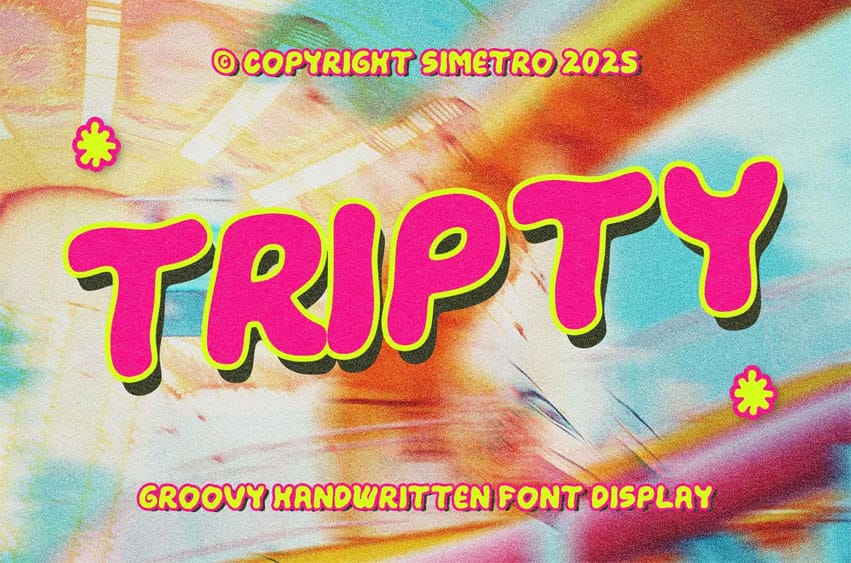
Tripty Font Dive into a world of vibrant fun and retro charm with TRIPTY, an utterly unique and playful, groovy handwritten font display. This eye-catching typeface is meticulously designed to exude a joyful, nostalgic, and energetic vibe, making it perfect for projects that demand a bold, distinctive, and whimsical personality. Inspired by psychedelic aesthetics and 70s-era graphics, TRIPTY brings a fresh yet familiar feel to your creative work.
TRIPTY’s signature bubble-style letters with their irregular, handcrafted outlines and a subtle textured appearance ensure your text jumps off the page (or screen!). It’s incredibly versatile for various high-impact applications: think vibrant social media graphics, captivating poster designs, playful children’s book titles, distinctive product packaging, and event promotions that aim to be unforgettable. Its bold presence and quirky details make it an instant attention-grabber.
This font comes equipped with a comprehensive character set, including both uppercase and lowercase letters, numbers (0-9), and essential punctuation. Designed for maximum visual appeal, TRIPTY is ready to infuse your designs with a dose of happiness and a unique, artistic flair.
*Groovy Handwritten Display Style: Unique, playful, and retro-inspired bubble lettering. *Bubble Letter Aesthetic: Bold, rounded, and distinctively quirky characters. *Complete Character Set: Includes uppercase, lowercase, numbers (0-9), ligatures, and punctuation. *High-Impact Visuals: Designed for headlines, titles, posters, and standout graphics. *Versatile Usage: Perfect for branding, social media, packaging, events, and kids’ designs. *Retro & Psychedelic Influence: Evokes a nostalgic and fun 70s vibe. *OTF and TTF Formats: Compatible with a wide range of design software.